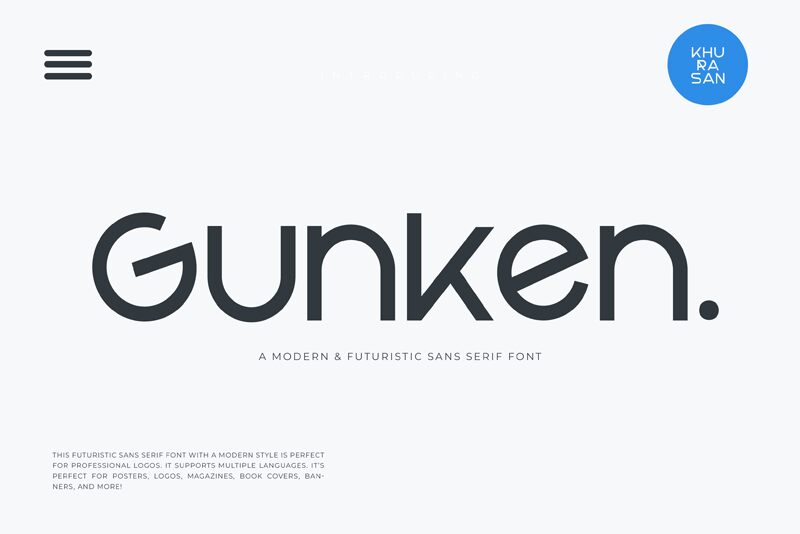
Gunken
Gunken by Khurasan is a free modern sans serif font. Built around smooth, circular bowls and clipped terminals, it has a crisp, engineered rhythm that reads futuristic without feeling cold. Those monoline strokes and tight joins create a slick, aerodynamic flow—think glossy plastic, clean edges, and a hint of sci‑fi sheen.
Using Gunken, headlines snap into focus and logos gain a confident, tech-forward voice. It shines on product packaging, esports branding, app splash screens, event posters, and bold website hero text. This free font handles short phrases best; set it large with generous tracking. Pair with a neutral grotesk for body copy to let Gunken’s rounded geometry do the talking.